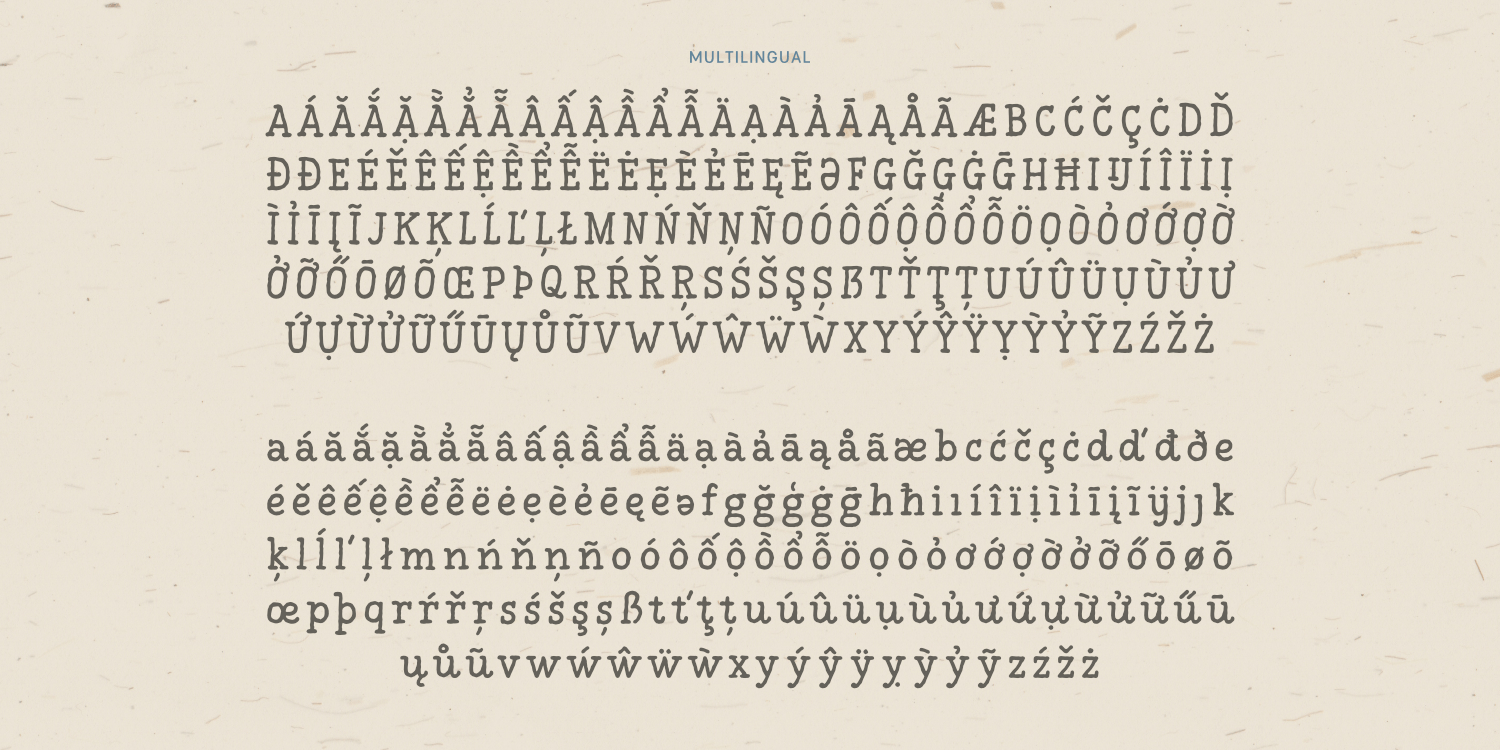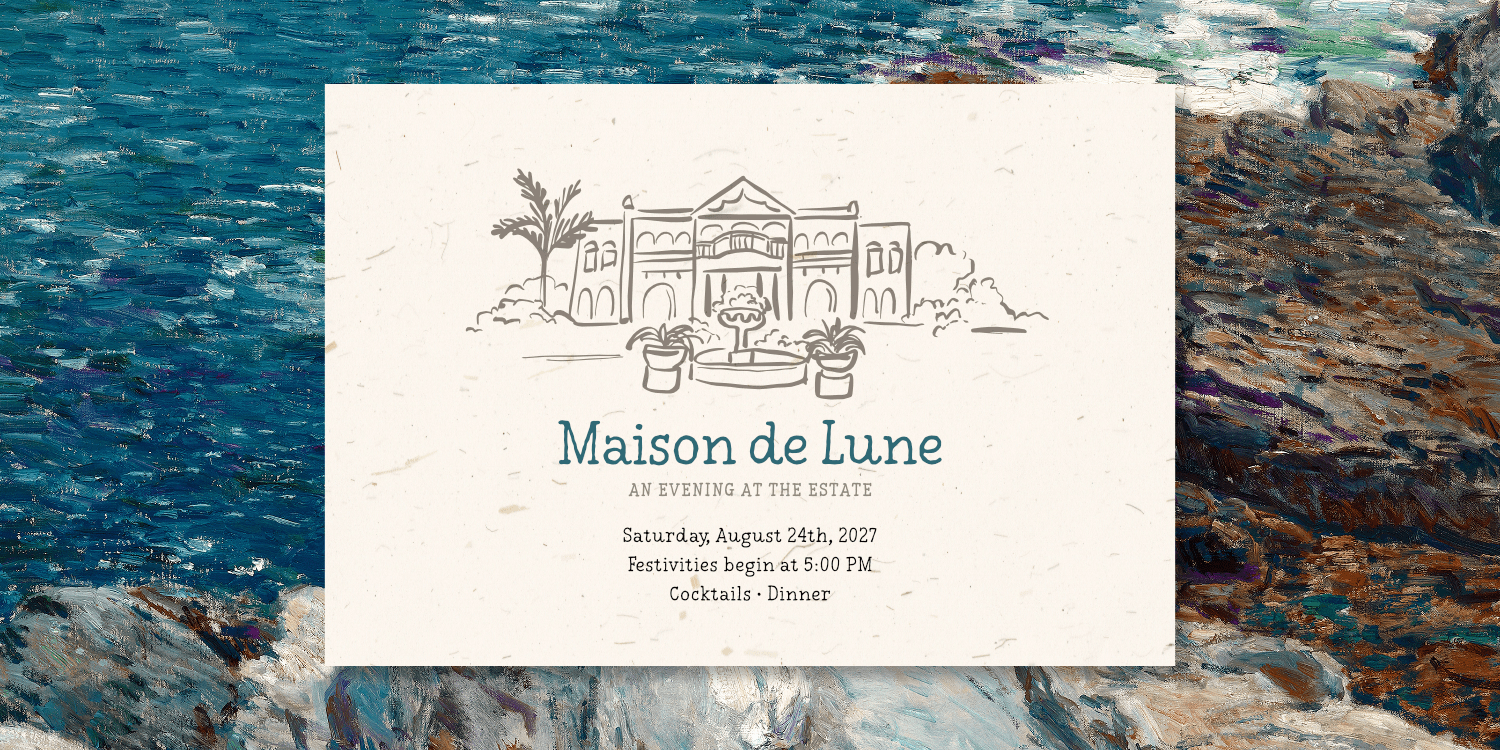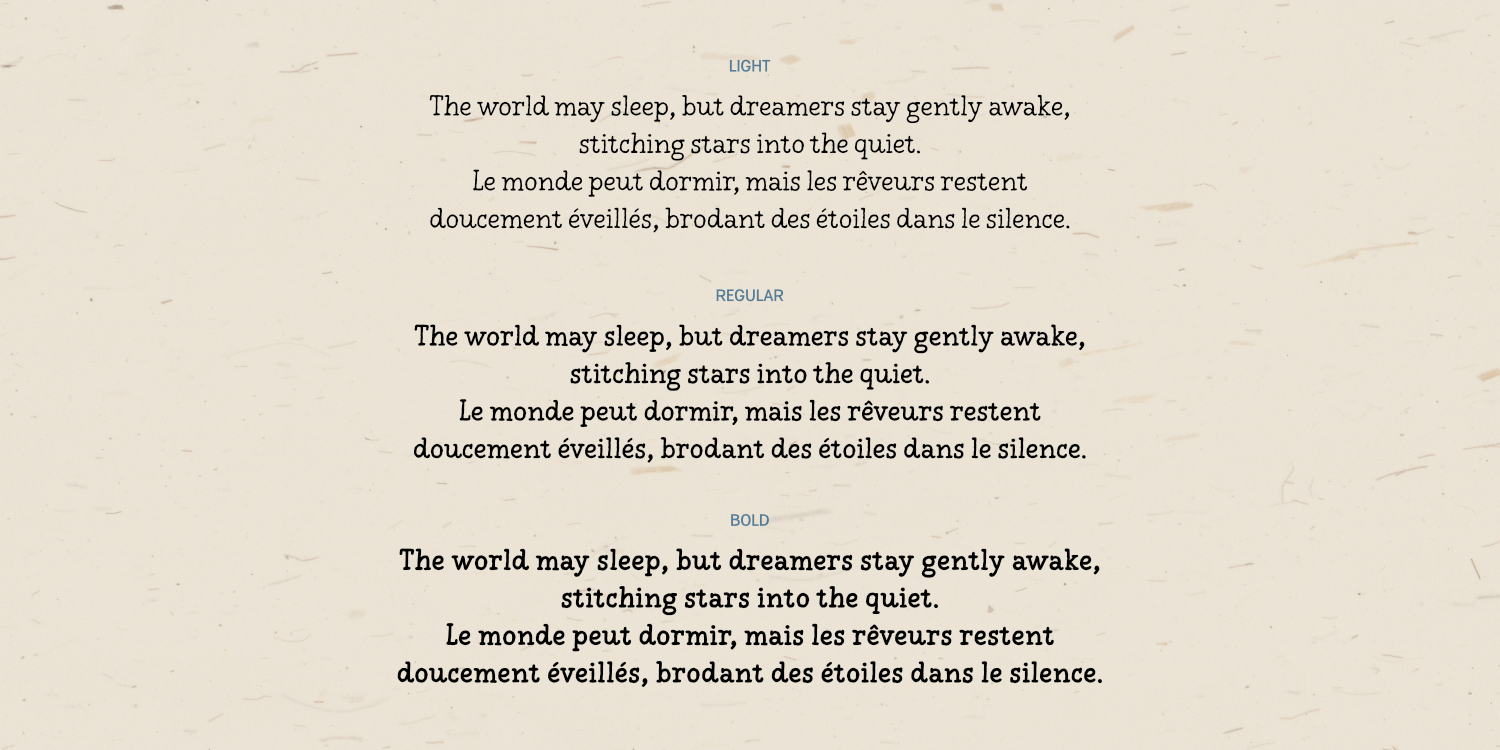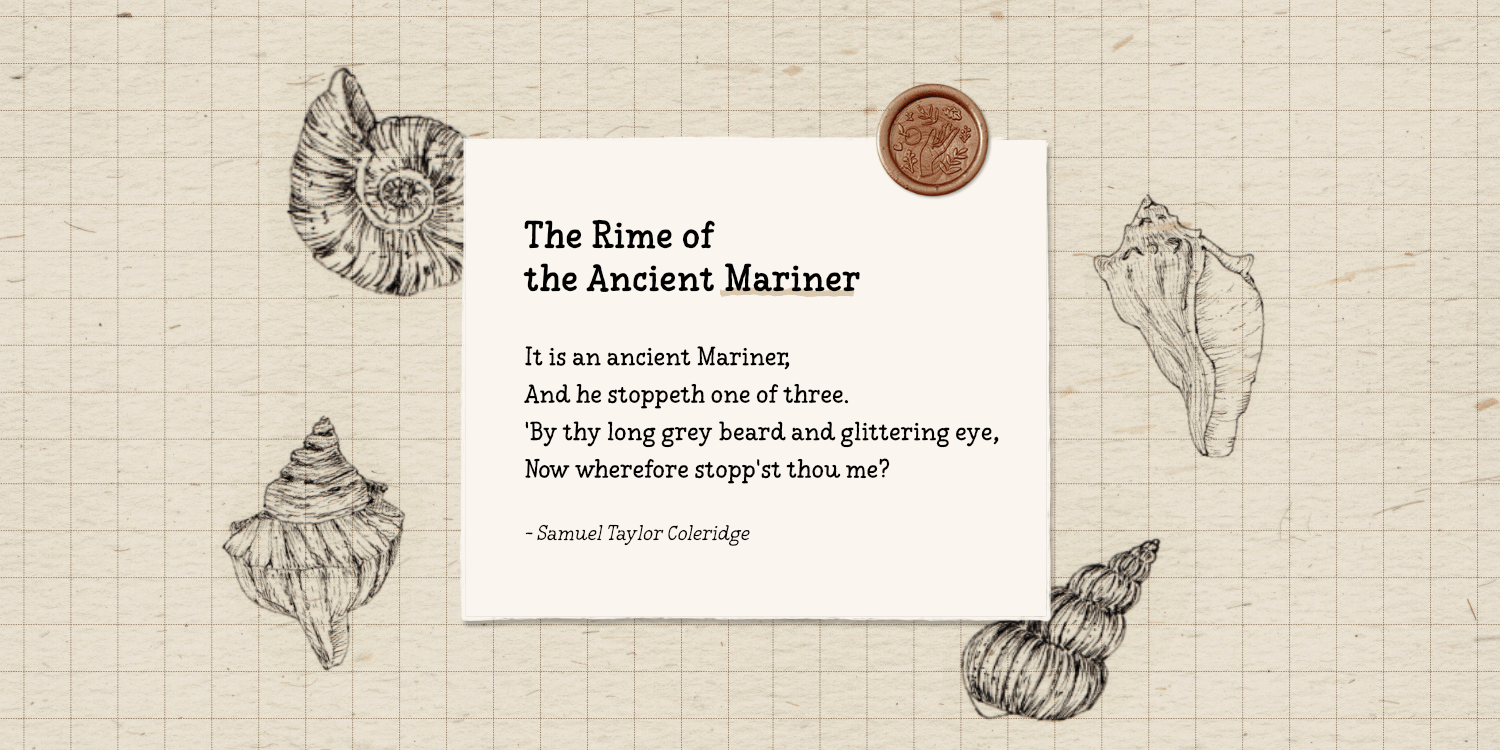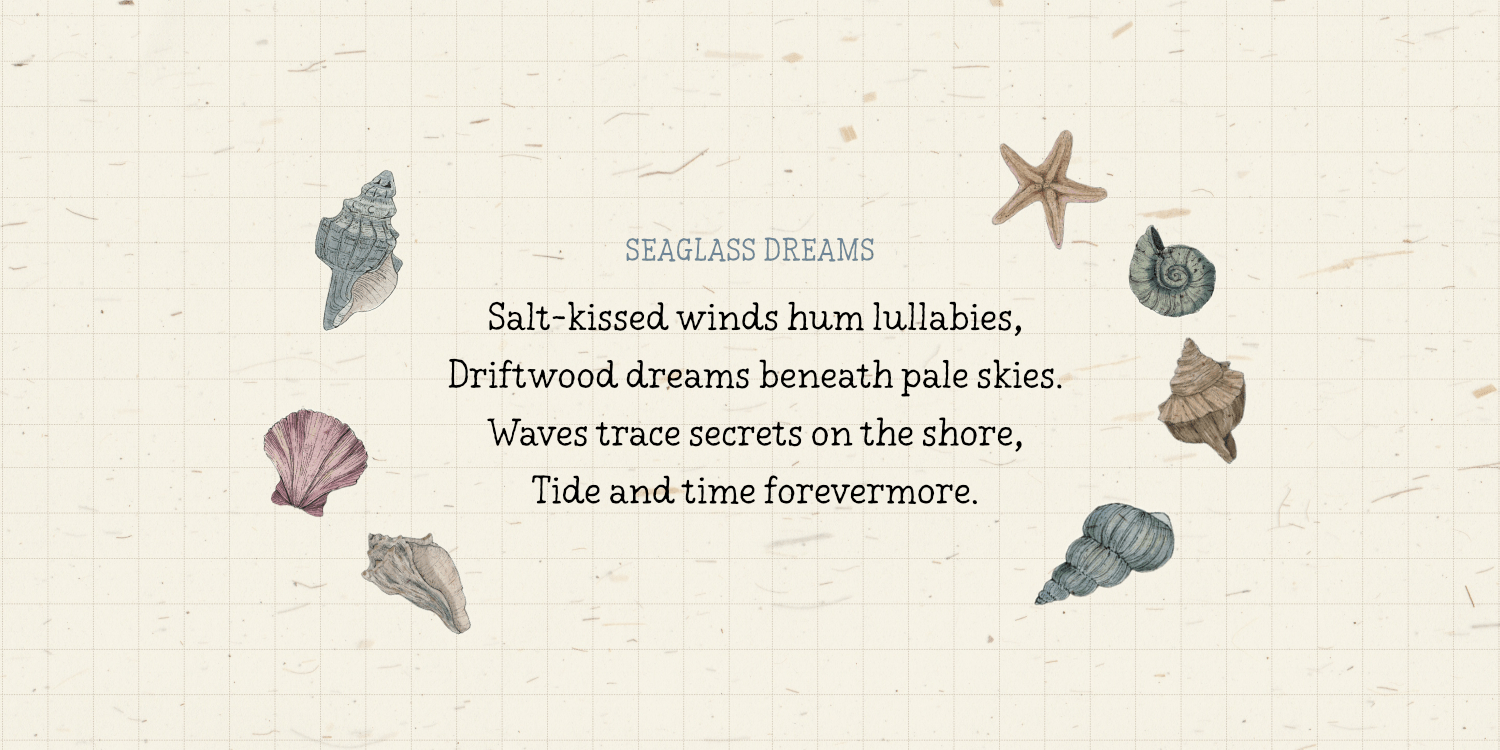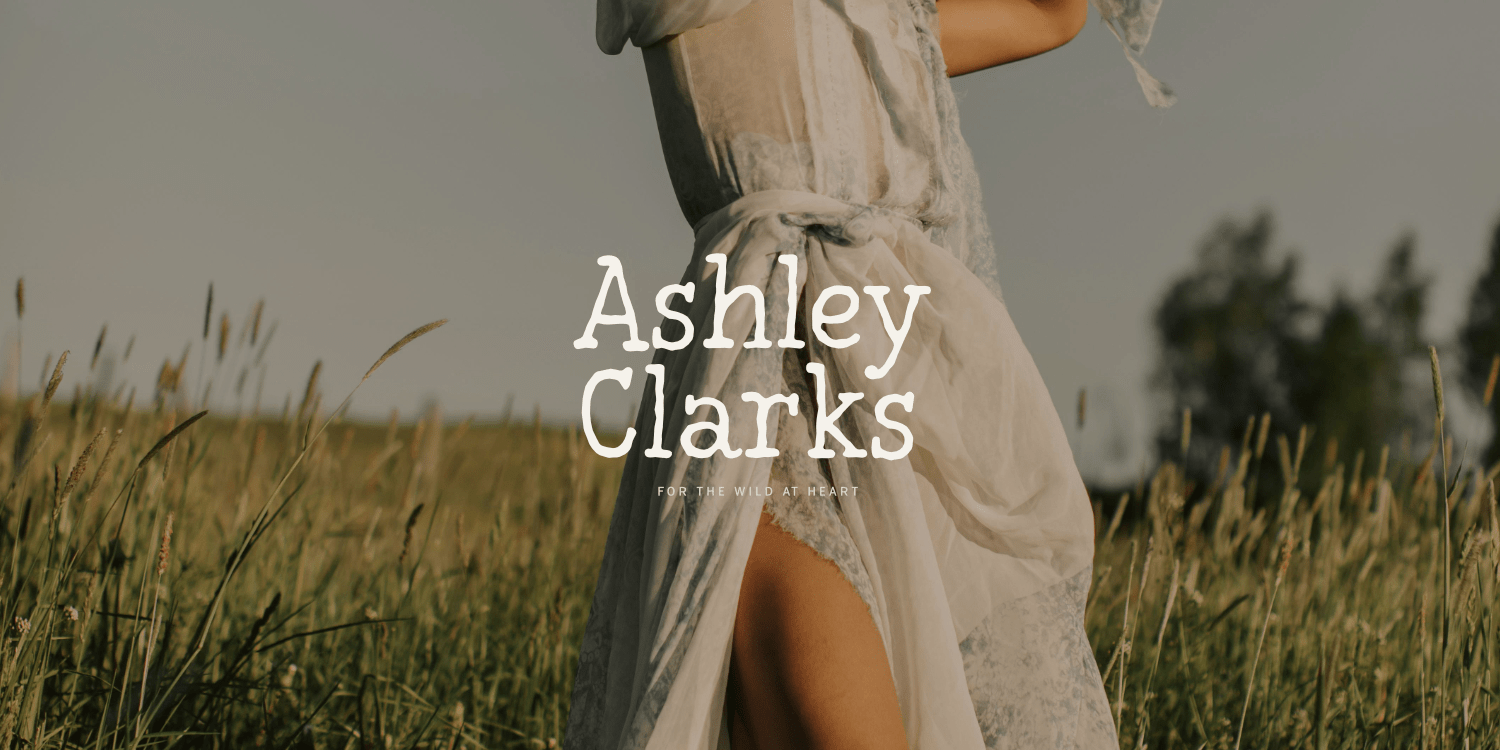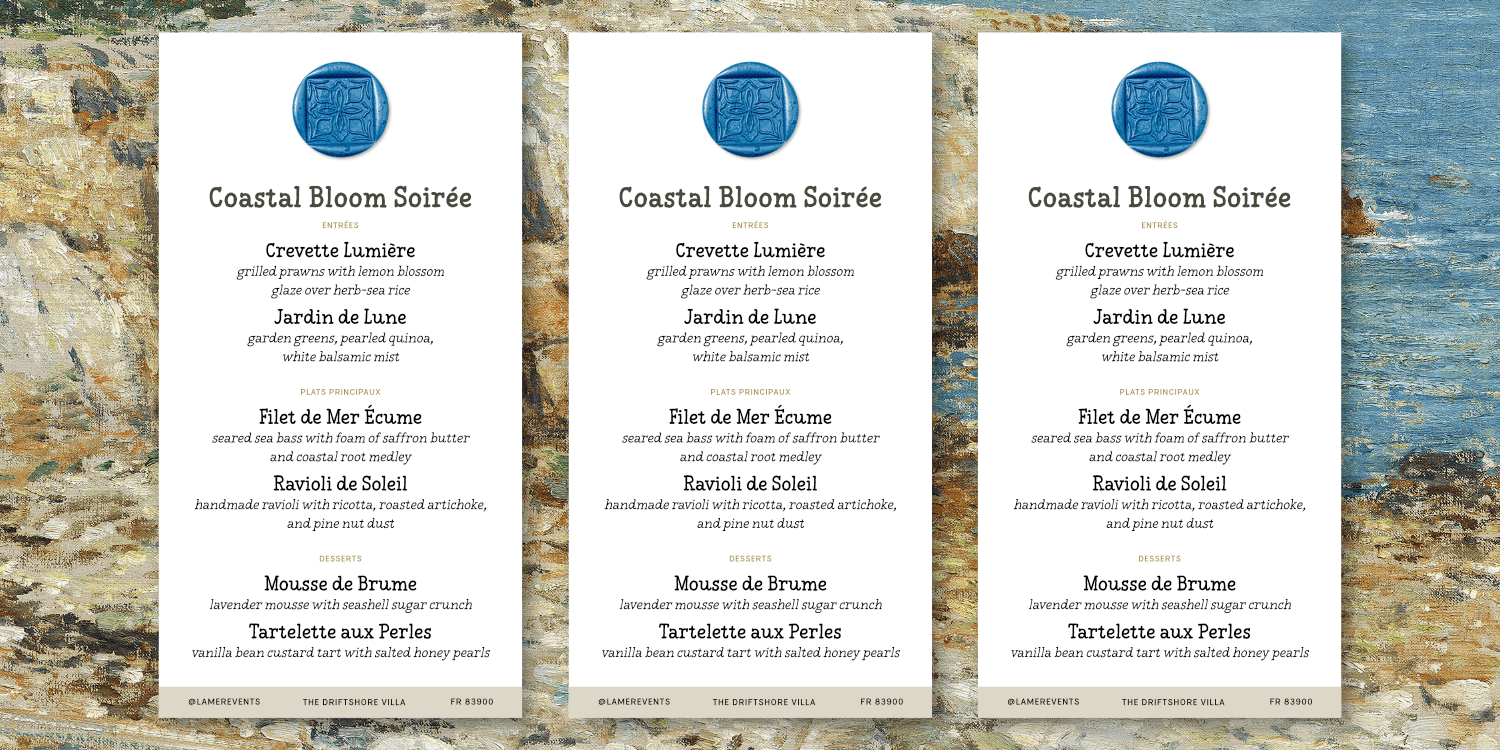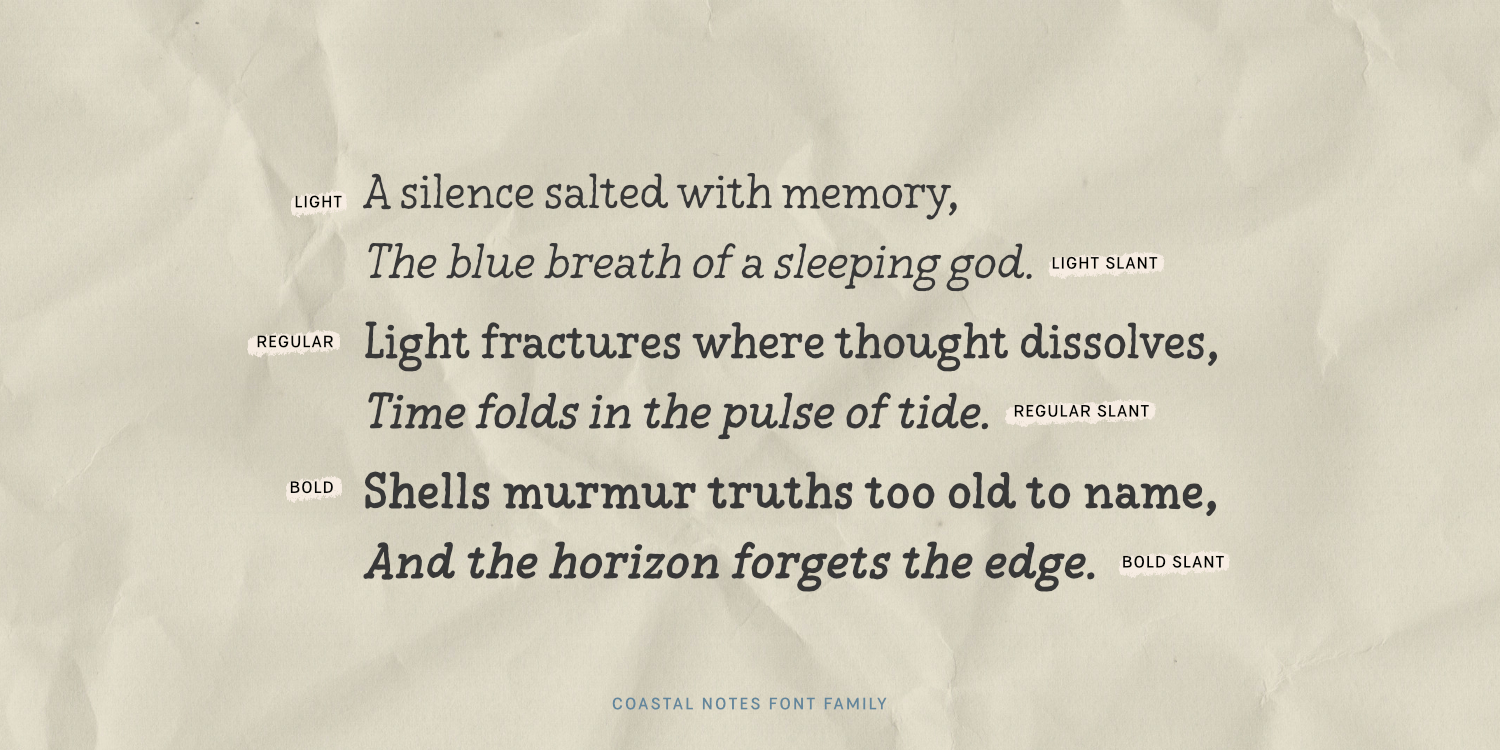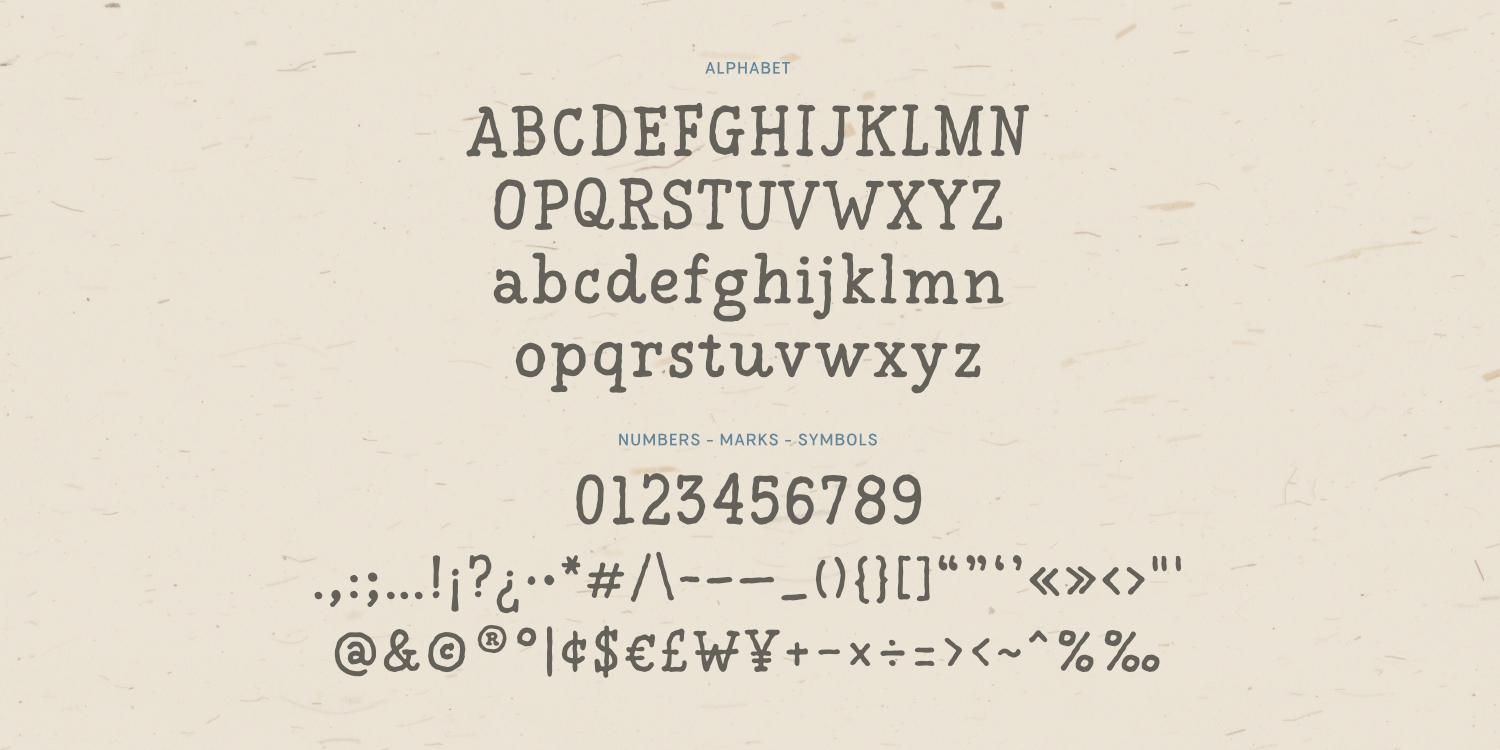
Coastal Notes
Font Family by type peace
Coastal Notes is a hand-drawn slab serif font family that captures the enduring allure of vintage typewriters. With six distinctive styles—Light, Regular, and Bold in both Upright and Slanted versions—this collection lends organic texture and individuality to your designs. The natural roughness and slight irregularities of Coastal Notes mimic the look of ink on paper, offering a perfect choice for projects that seek warmth, personality, and authenticity.
Features:
• Six font styles
• Includes numbers, marks, and symbols
• Comprehensive multilingual support